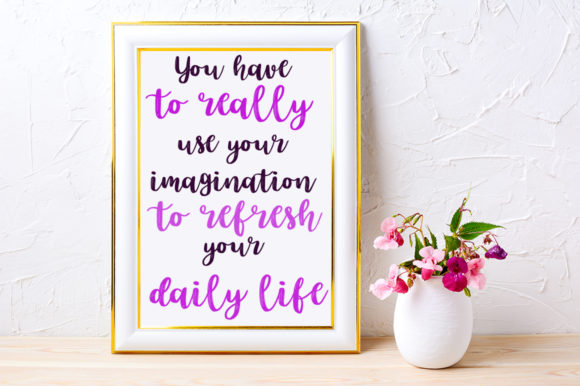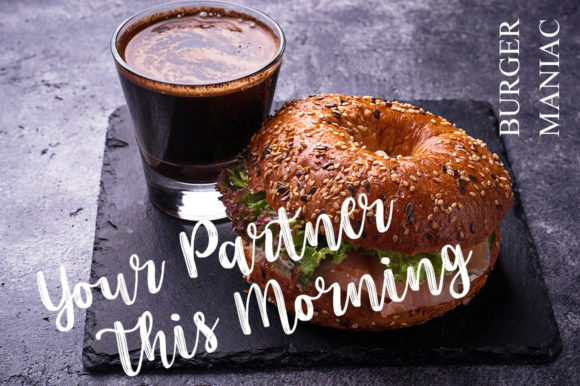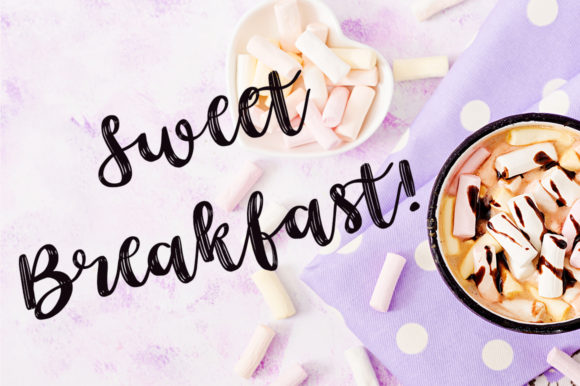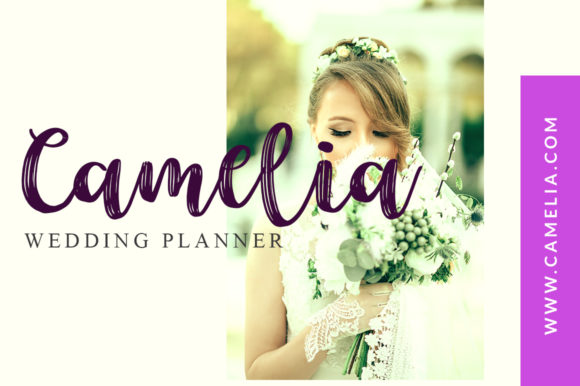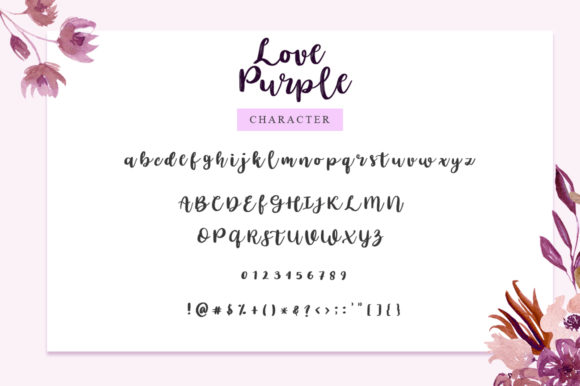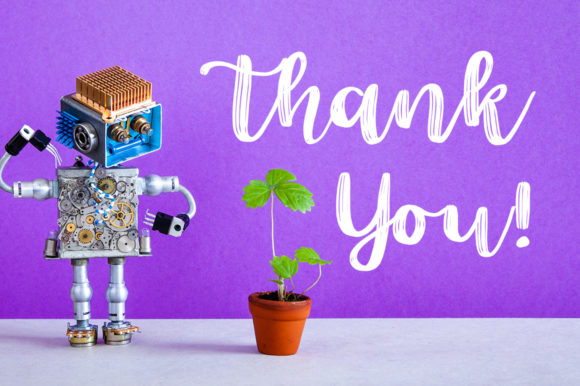
Introduction to Love Purple Font
Love Purple is an incredibly lovely and sweet handwritten font with a magical twist.
Use it to turn any design project into a standout .
Key Features of Love Purple Font